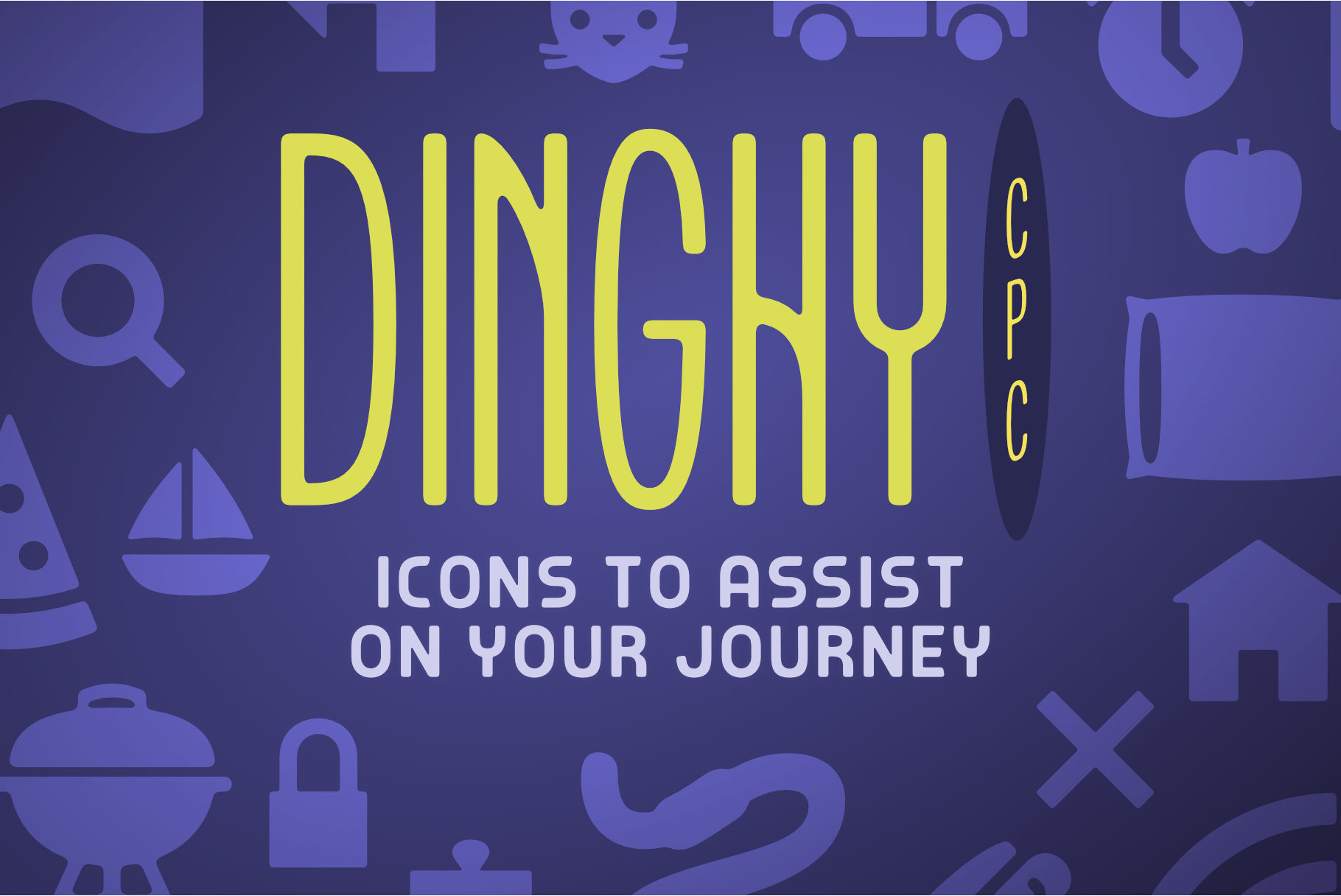
Dinghy CPC - Solid Icon Font
Icons to assist on your journey!
A large collection of 600+ icons you can use for nearly any situation that may come up in your life or project! There are enough categories to get your idea rolling.
Over the past 14 years, I've designed websites and software that needed easily read tiny graphics (icons) to help the clarity of an interface. I set out to create my own icon set, but package it up as a font for its ease of use and scalability.
This is a growing collection of icons. Expect updates and category breakout sets in the future.
- 637 solid icons
- Unicase Basic Latin letterforms.
- 2 Styles - Sharp & Rounded Corners
- Stylistic Set alternatives (highlighted in pink below)
- According to my wife, "it has character."
Ideas for Usage